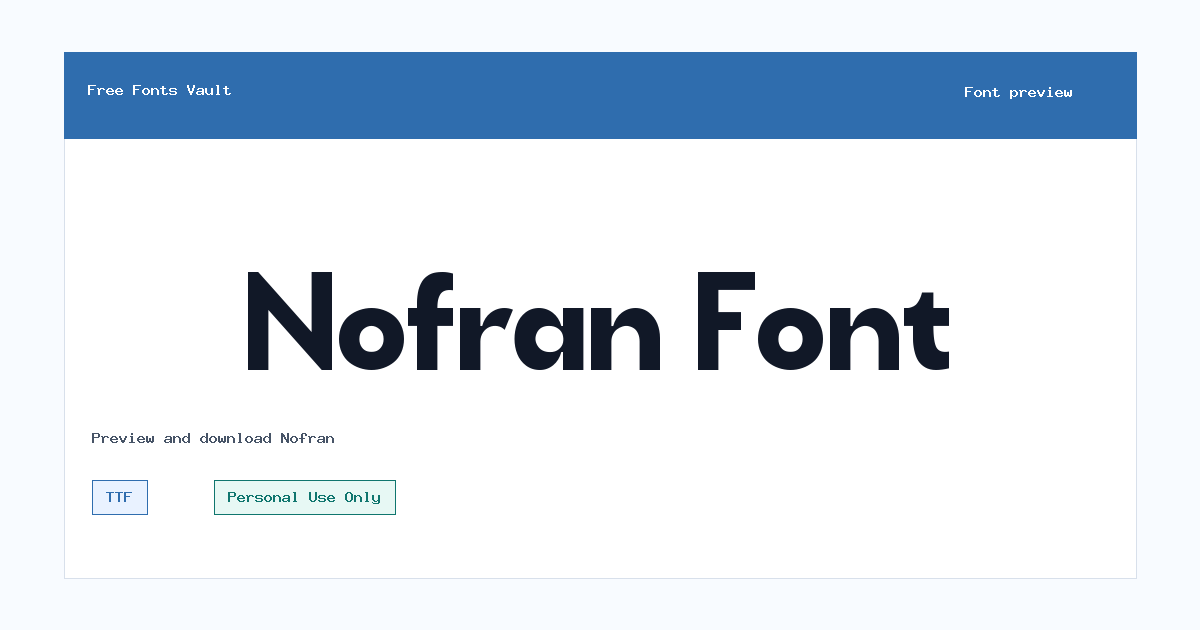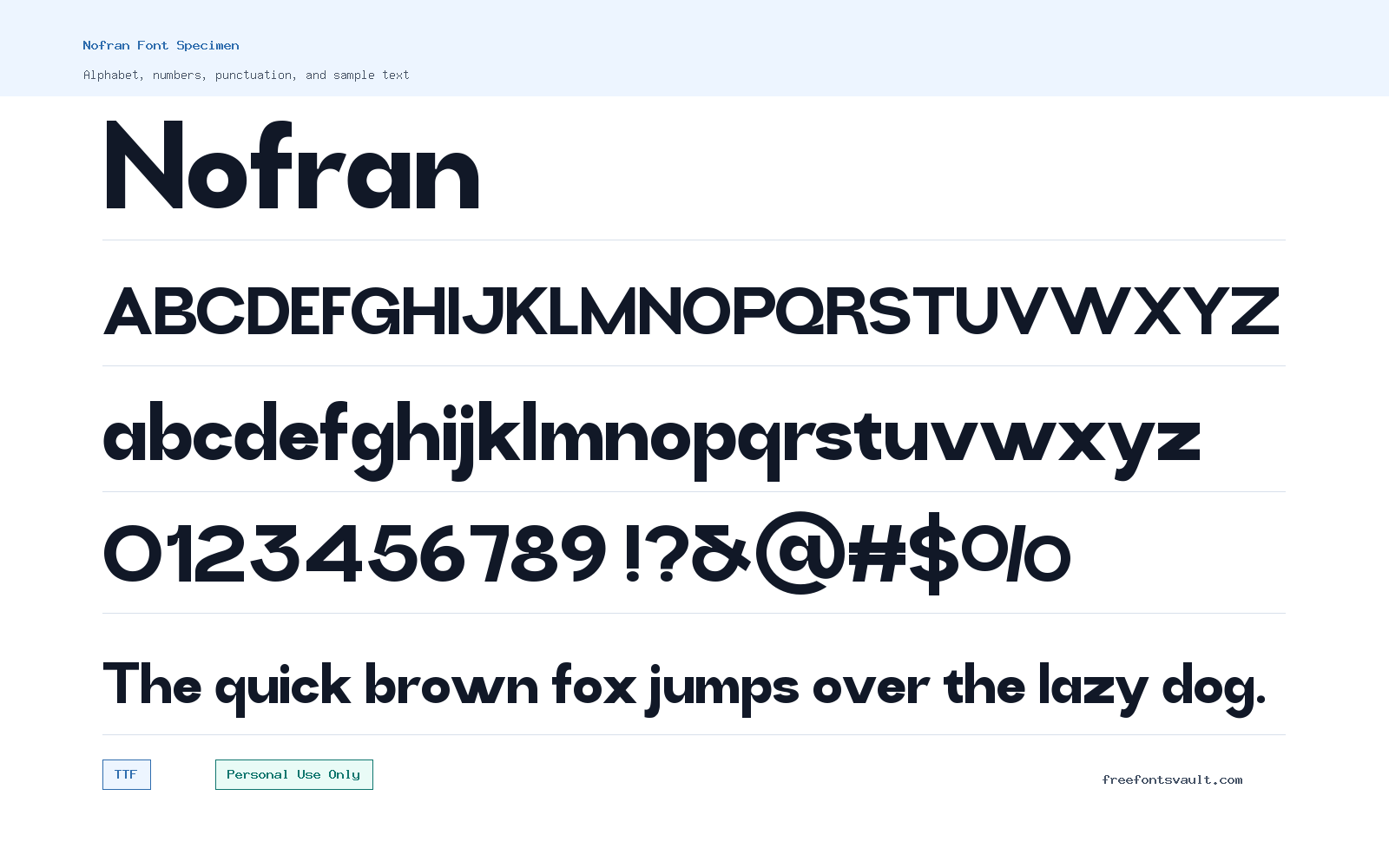
Nofran
- Designer Maikohatta
Nofran font.
Nofran is a clean sans serif font family offered in regular style for personal projects. Its simple structure makes it easy to test in headlines, short labels, posters, and other display settings where a neat modern look is useful.
About Nofran Font
Nofran has the straightforward feel of a sans serif typeface, with a regular weight that should work best in short blocks of text rather than heavy reading. Because only a regular style is listed, it is a good idea to preview your exact words before using it in a design. Try names, titles, button labels, social captions, or a short phrase to see how the spacing, letter shapes, and overall rhythm behave at different sizes. A single-weight font can look polished when the layout is simple, but it may need help from size, color, spacing, or a second typeface when a design needs stronger hierarchy.
- Sans serif regular style with a simple, modern presentation
- Single listed weight, useful for clean titles, short labels, and personal design experiments
- Best tested in the live preview with the exact words and sizes planned for use
- Personal posters, moodboards, and concept graphics
- Short headlines, names, captions, and display text
- Personal social media images or non-commercial mockups
- Design drafts where a clean sans serif voice is needed
Use Nofran for short personal-use text first, then test readability at the final size. Pair it with a more neutral text font if your design needs longer paragraphs, detailed information, or stronger contrast between heading and body copy.
Who designed Nofran?
The designer is listed as Maikohatta.
What is Nofran best used for?
It is best suited to short personal-use designs such as titles, posters, captions, mockups, and display text. Test longer text carefully before using it.
Should I use Nofran for body text?
Use caution with long paragraphs. Since only a regular style is listed, it may work better for short text, headings, and simple layout elements than for extended reading.